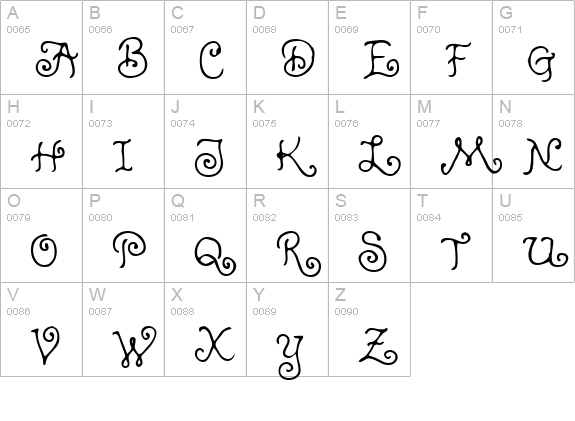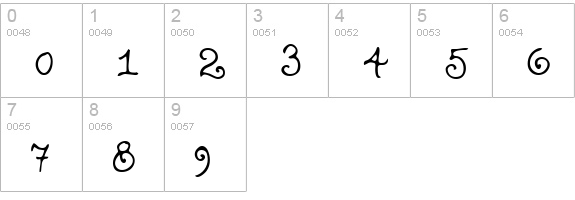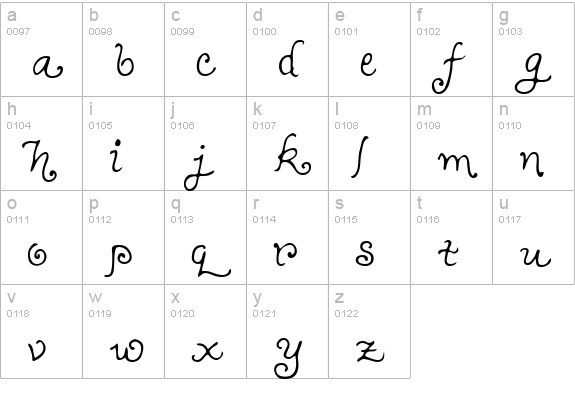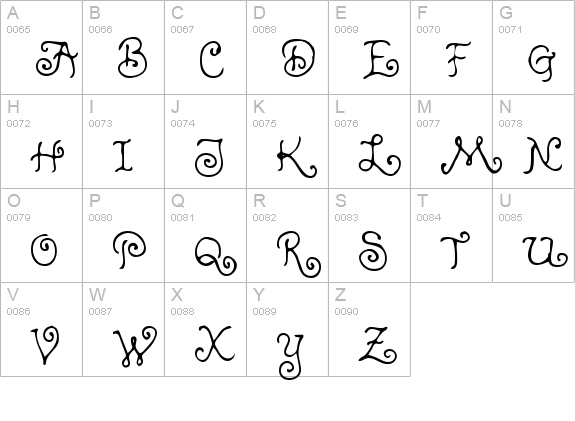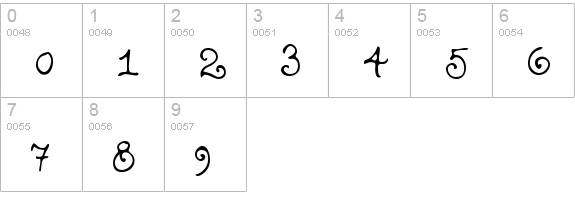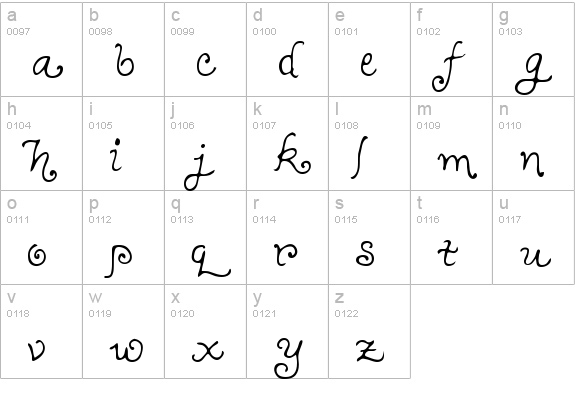
Introducing Teenage Girl 1 font, the perfect blend of youthful energy and captivating charm. This font is designed to add a touch of whimsy and playfulness to any project, making it a must-have for all teenage girls who love to express themselves creatively. With its delicate curves, graceful lines, and stylish simplicity, Teenage Girl 1 font captures the essence of teenage exuberance and femininity. Whether you're designing a trendy logo, creating eye-catching social media graphics, or crafting personalized invitations, this font will effortlessly convey the youthful vibes you desire. But what sets Teenage Girl 1 font apart is its uniqueness and versatility. It offers a wide range of glyphs and ligatures, allowing you to mix and match letters to create a custom look that is entirely your own. From handwritten love notes to inspirational quotes, this font will bring your words to life with its irresistible appeal. And the best part? Teenage Girl 1 font is freely available to download at FontsMarket.com. That's right, you can add this font to your collection without breaking the bank. So, what are you waiting for? Let your creativity soar and let Teenage Girl 1 font be your artistic companion in all your design endeavors. Don't miss out on this opportunity to infuse your projects with a youthful spirit and a touch of magic. Download Teenage Girl 1 font today and embrace the freedom to express yourself in the most beautiful way possible.